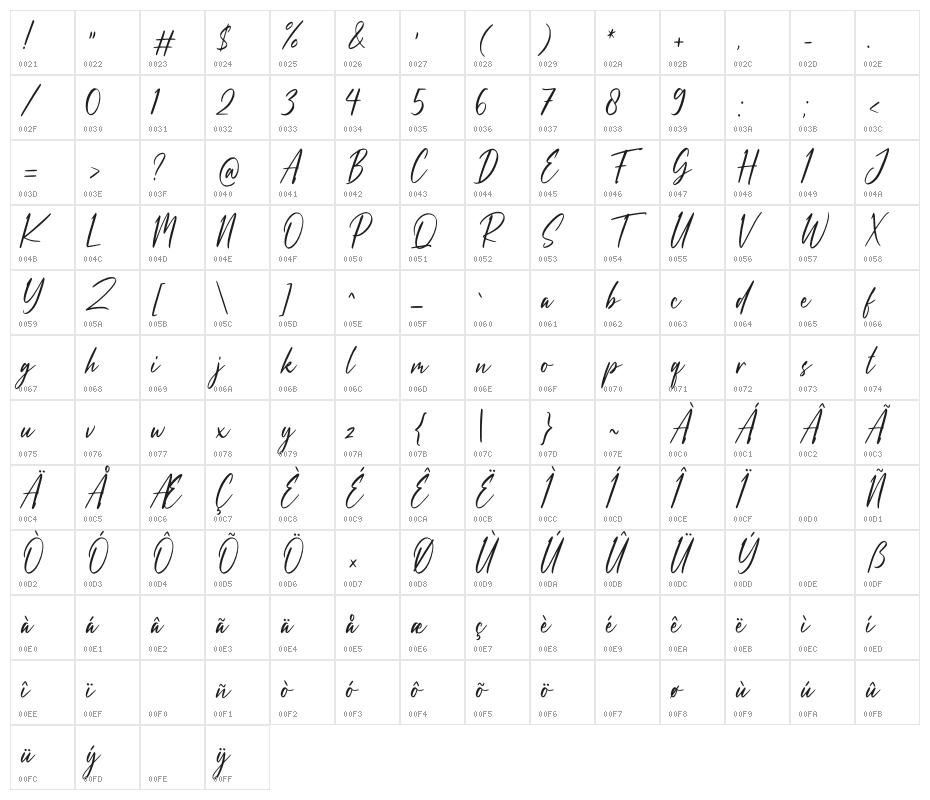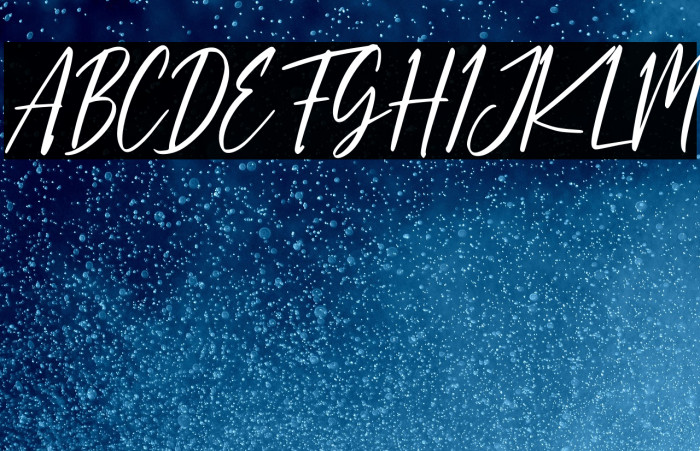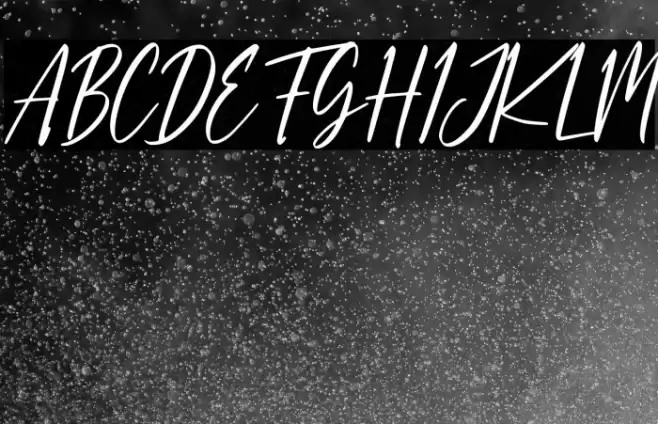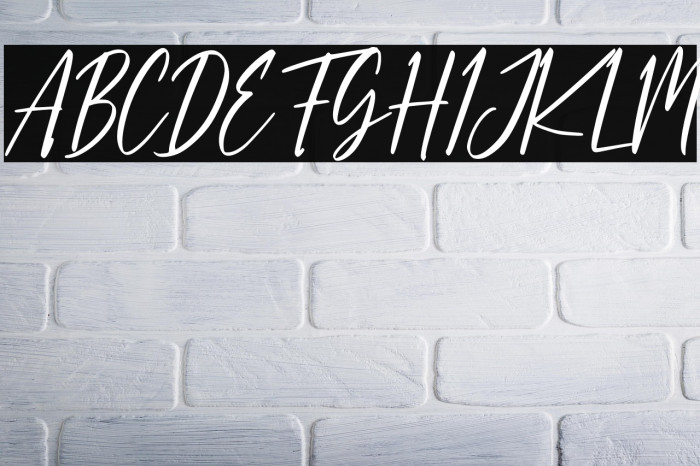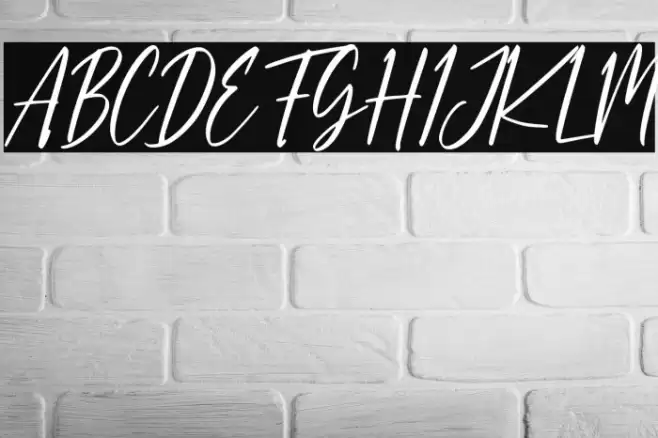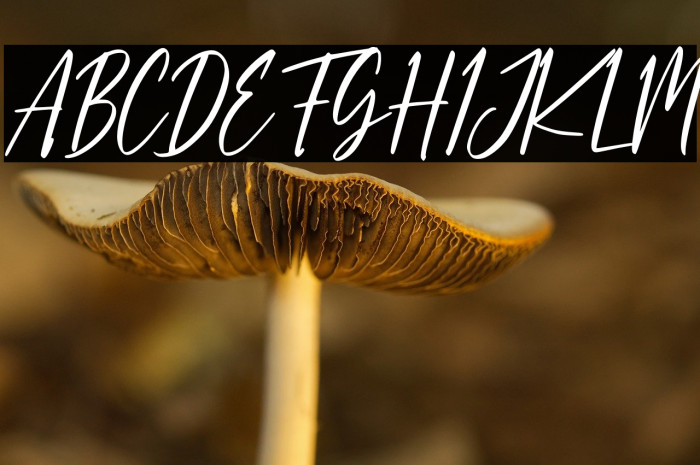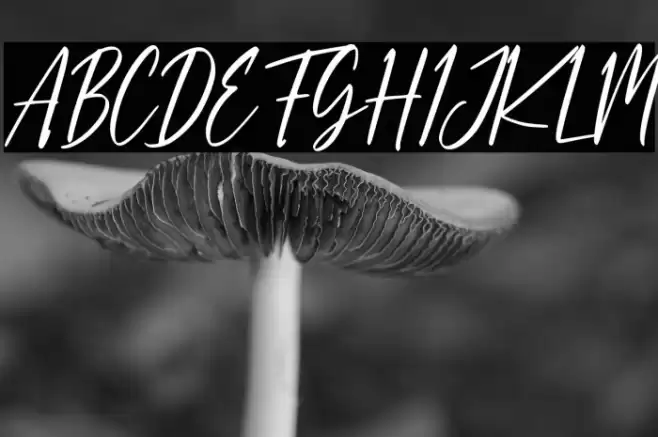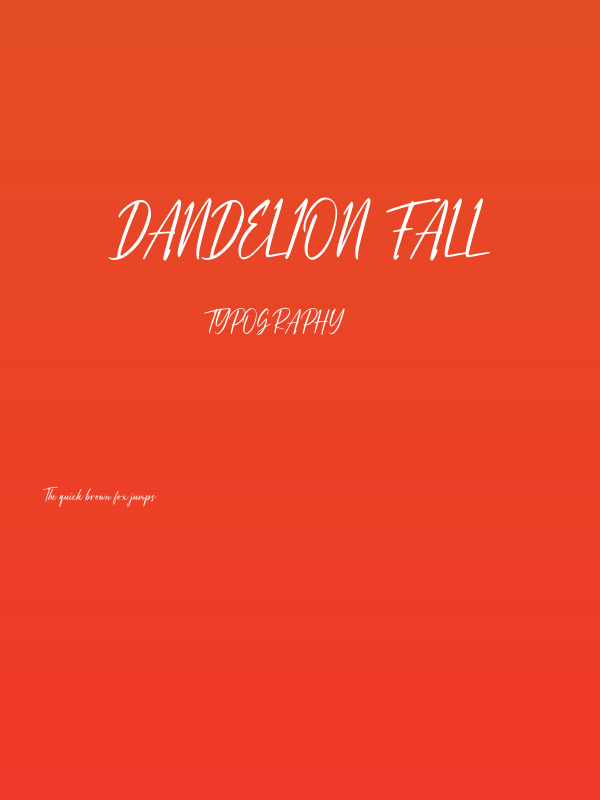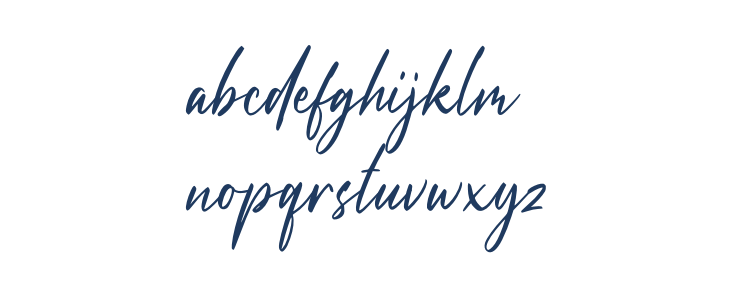
Dandelion Fall Font
Dandelion Fall Description
This font exudes a lively and expressive character with its handwritten style, featuring fluid and dynamic strokes that convey a sense of movement and spontaneity. The letters are slightly slanted, enhancing the casual and informal feel. Each character is crafted with a unique flair, showcasing variations in stroke width that add to its charm. The uppercase letters are bold and prominent, while the lowercase letters maintain a consistent flow, making it suitable for creative and artistic projects. The numerals and special characters are well-integrated, maintaining the overall aesthetic of the font.
| Proposed Projects | Ideal for greeting cards, invitations, personal branding, and creative design projects. |